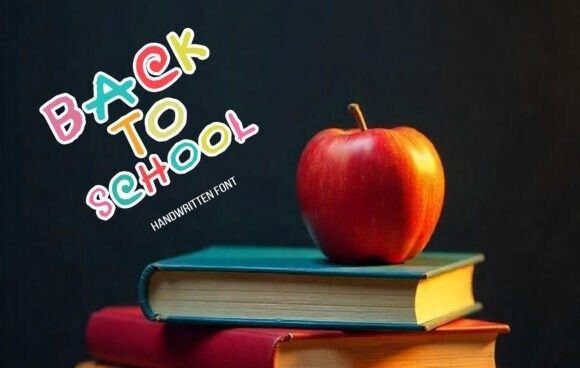
Back to School Playful Font
Back to School Playful Font is a fun, playful font that looks like it was written by a child. With its uneven letters and bouncy shapes, it’s perfect for creating a cheerful and school-themed design.